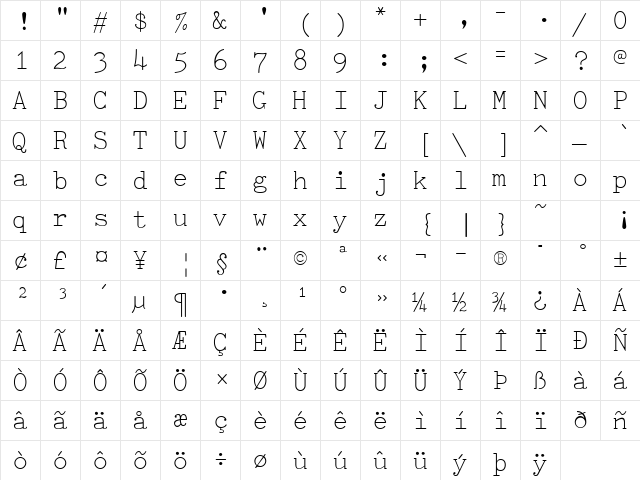
TiredOfCourierThin Regular Font Preview
Design Context for TiredOfCourierThin Typeface
TiredOfCourierThin uses fixed-width spacing throughout, giving it the structured, systematic character associated with coding environments and technical documentation. Its slender proportions lend an understated elegance to any composition.
Pro Tip: Use TiredOfCourierThin with slightly increased line-height for extended reading — fixed-width spacing can feel dense in longer passages without extra breathing room.